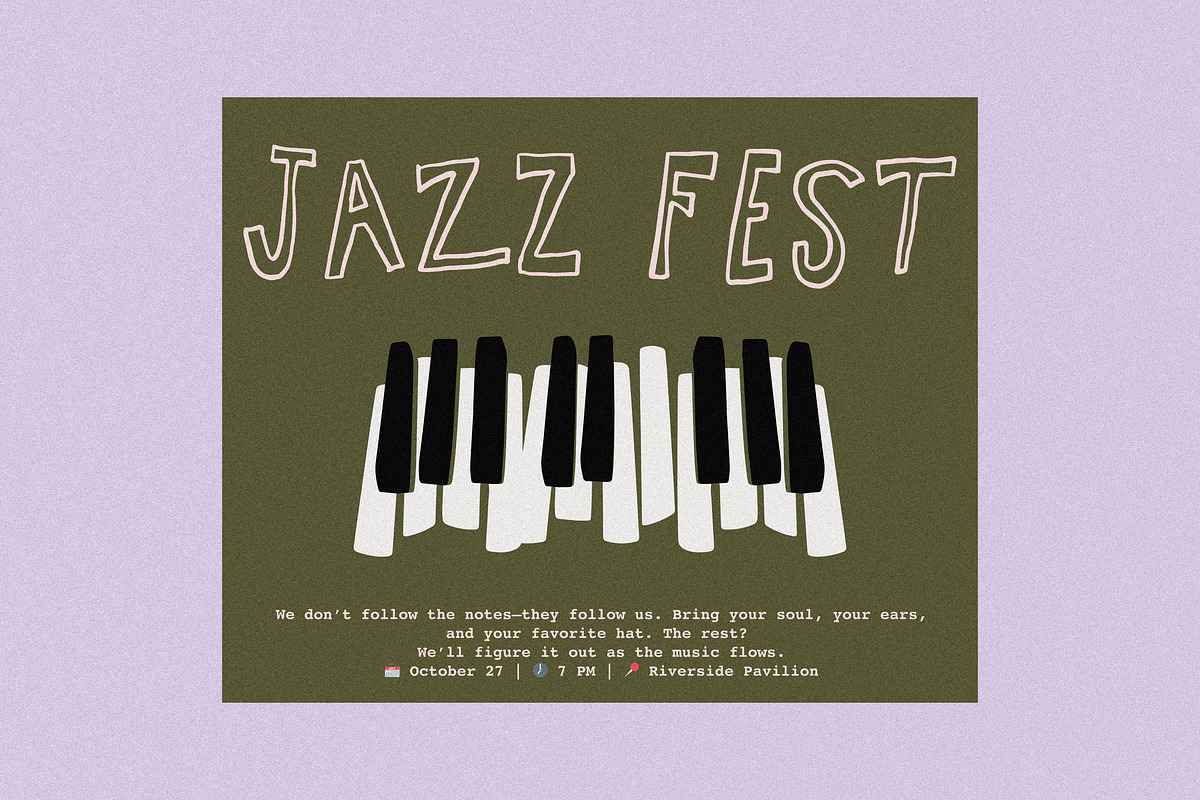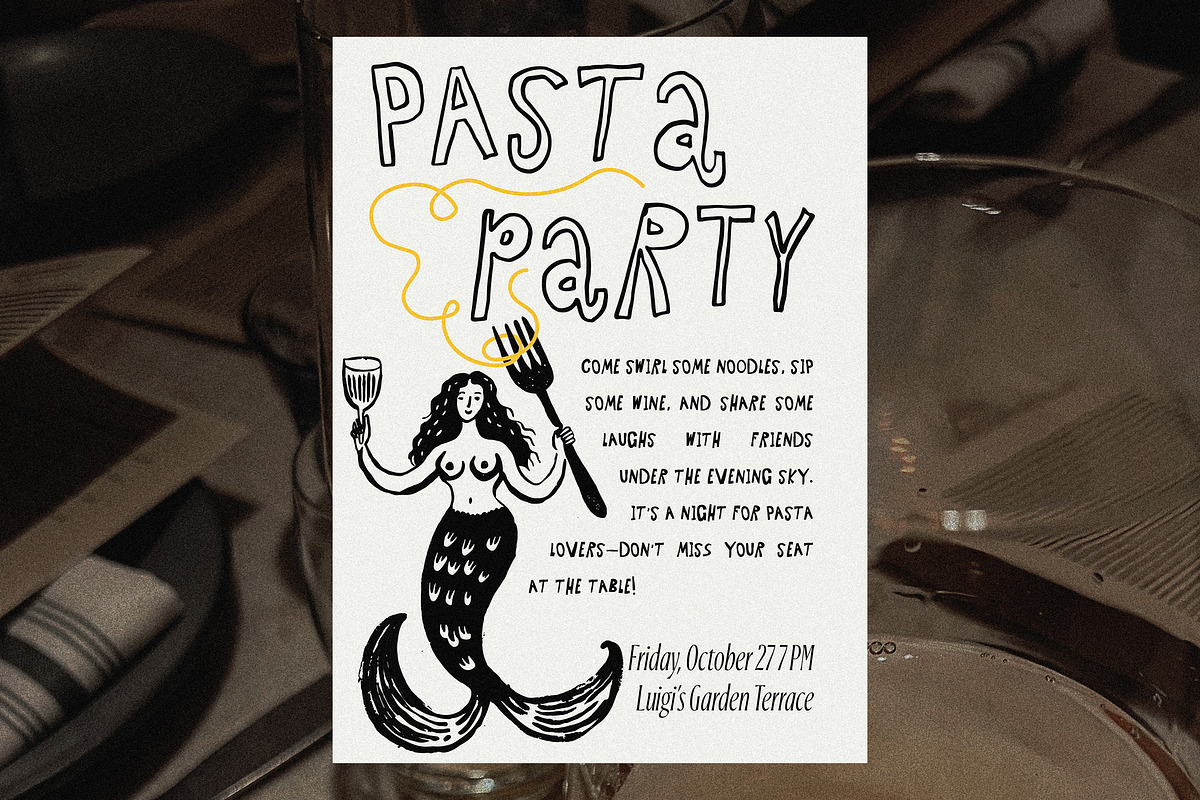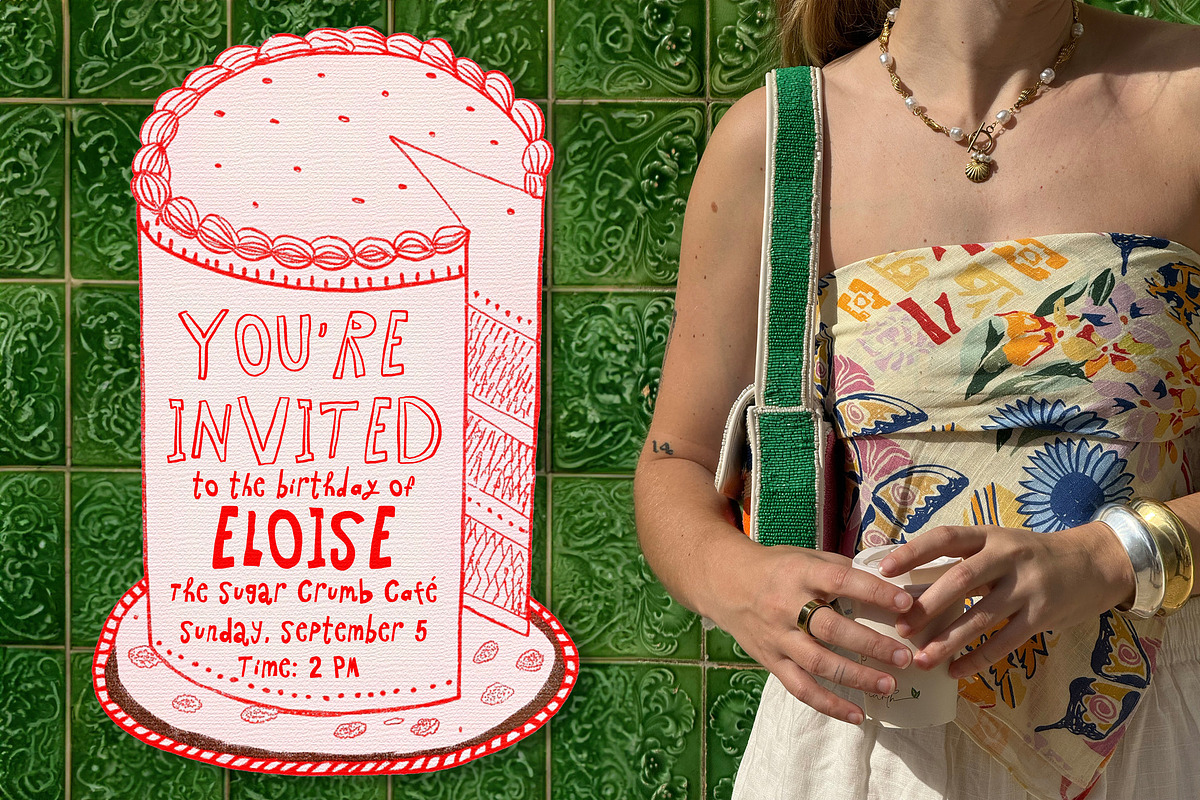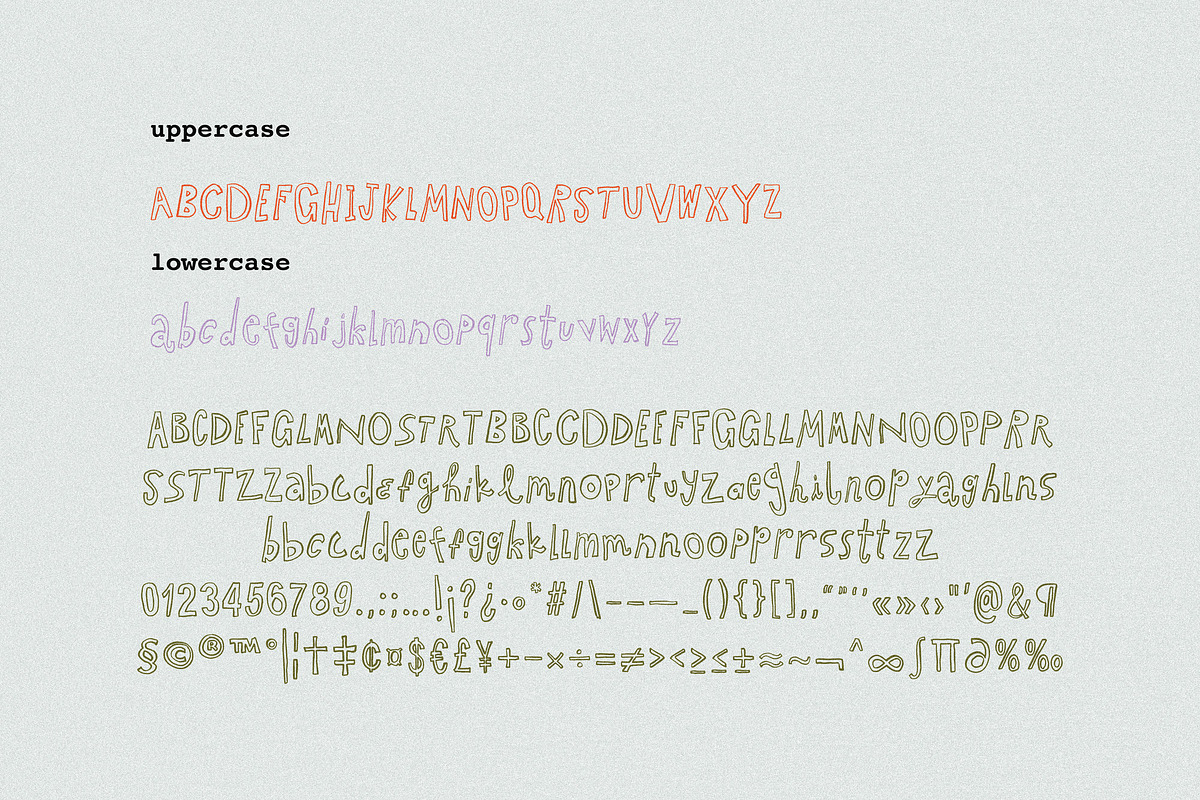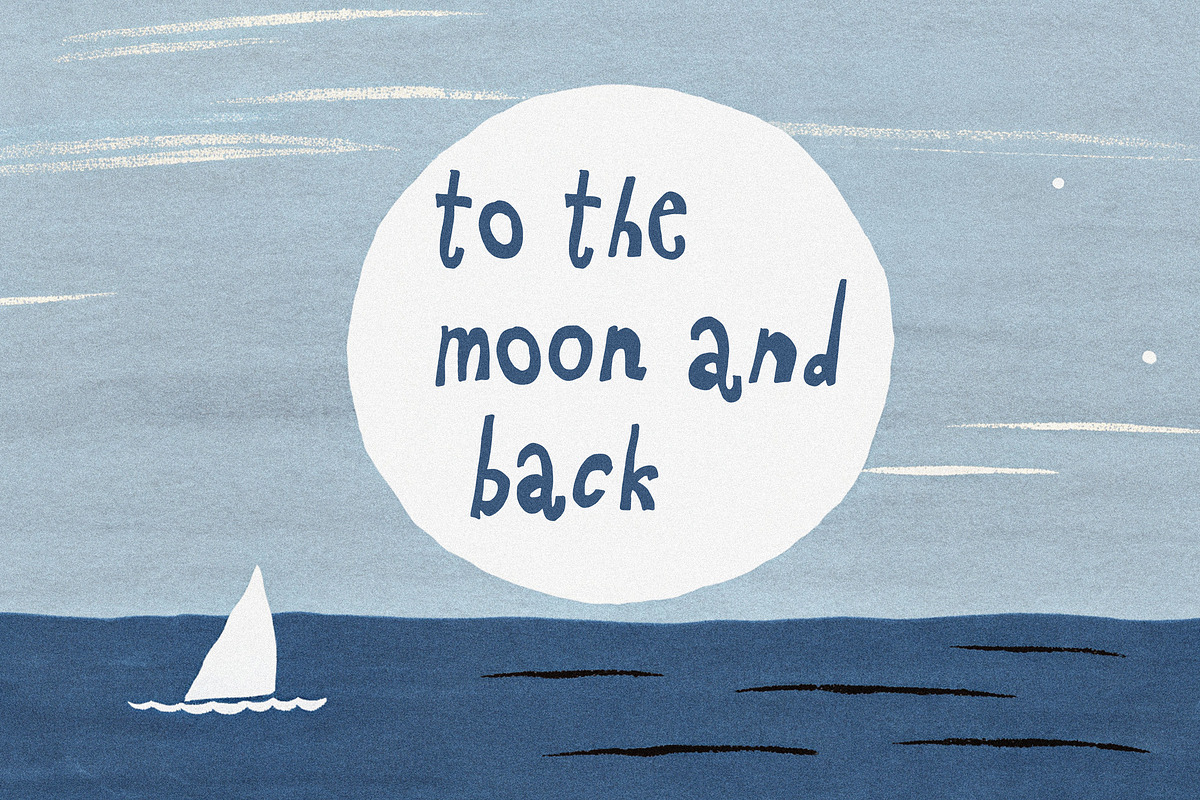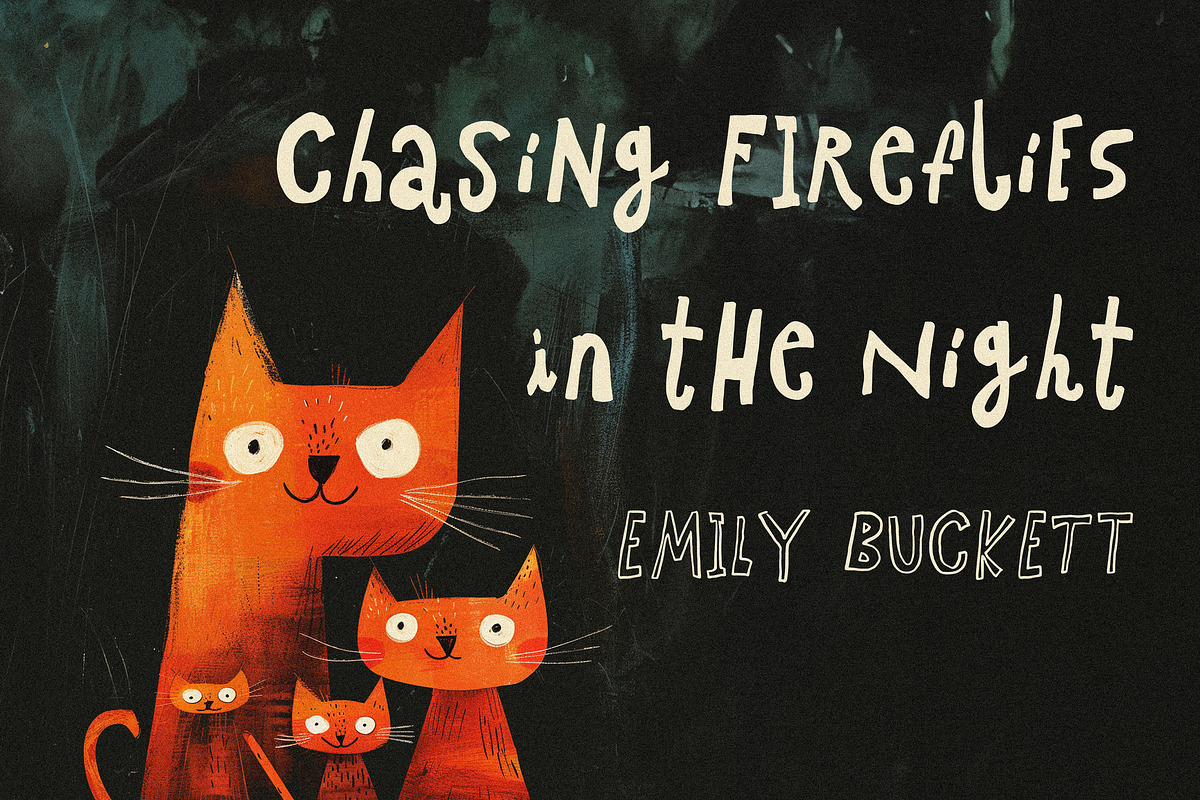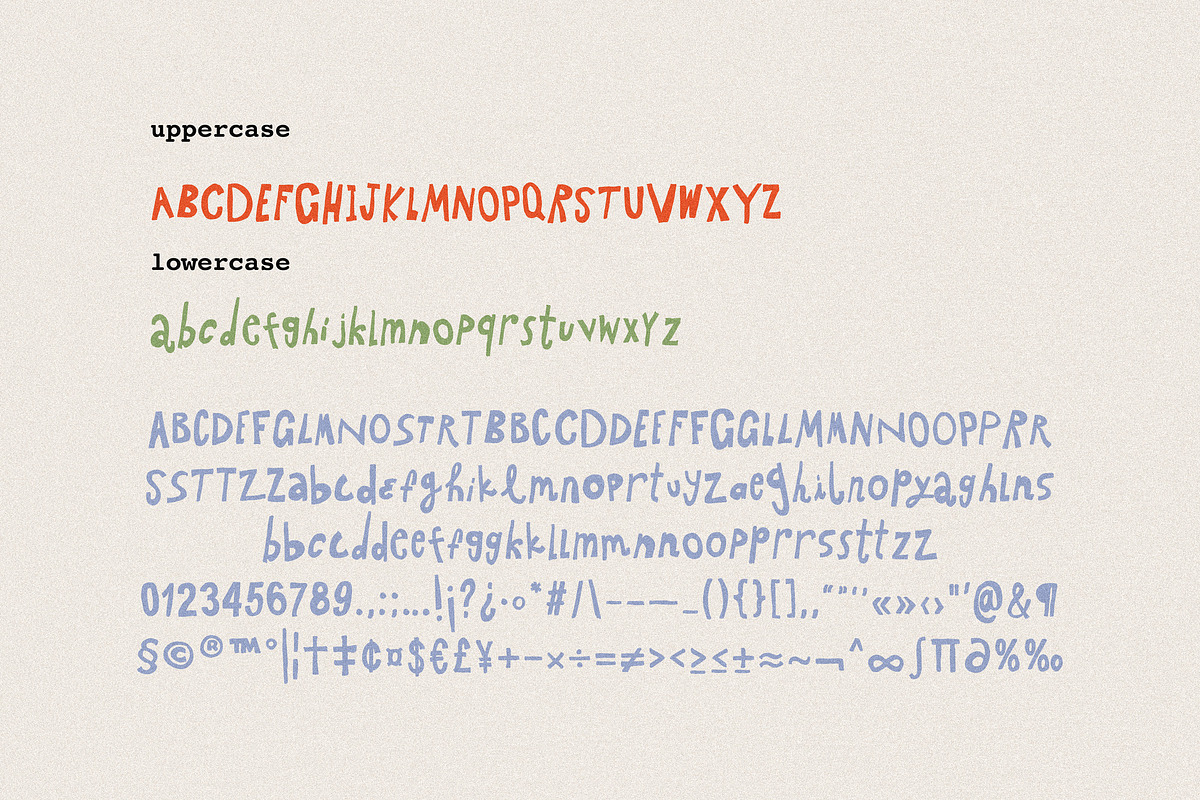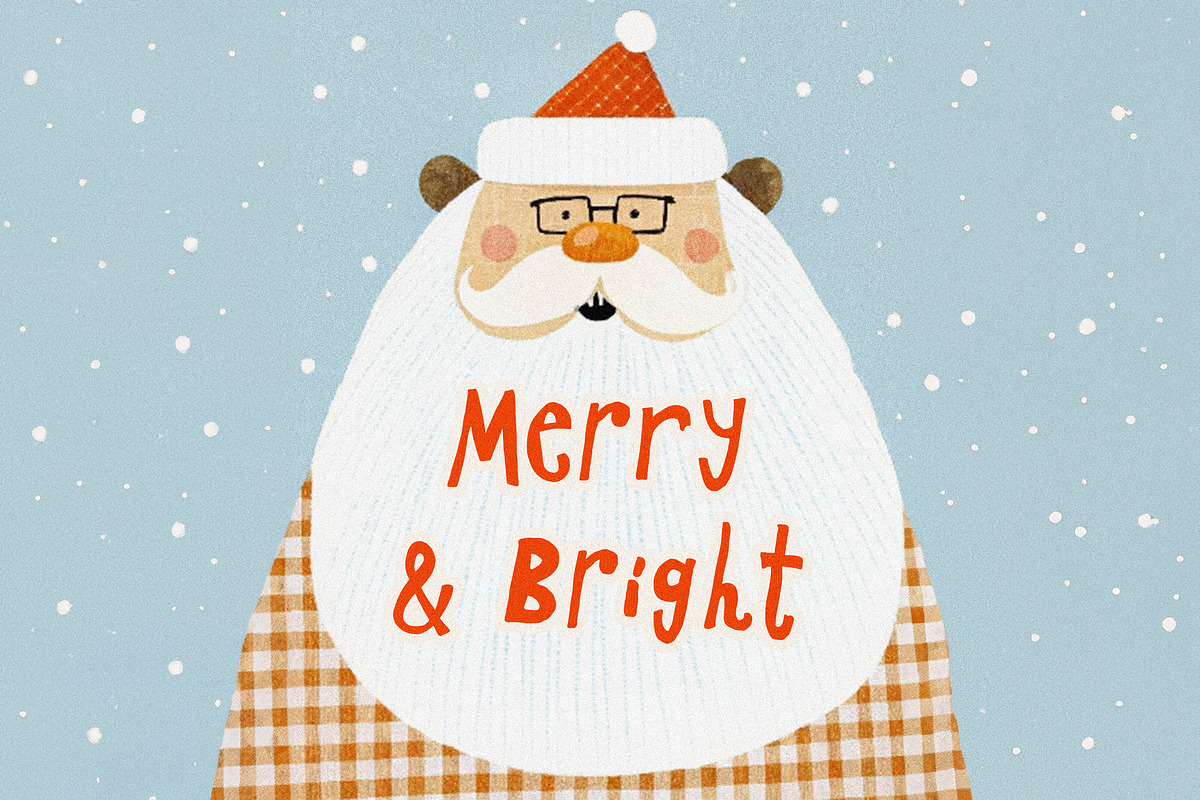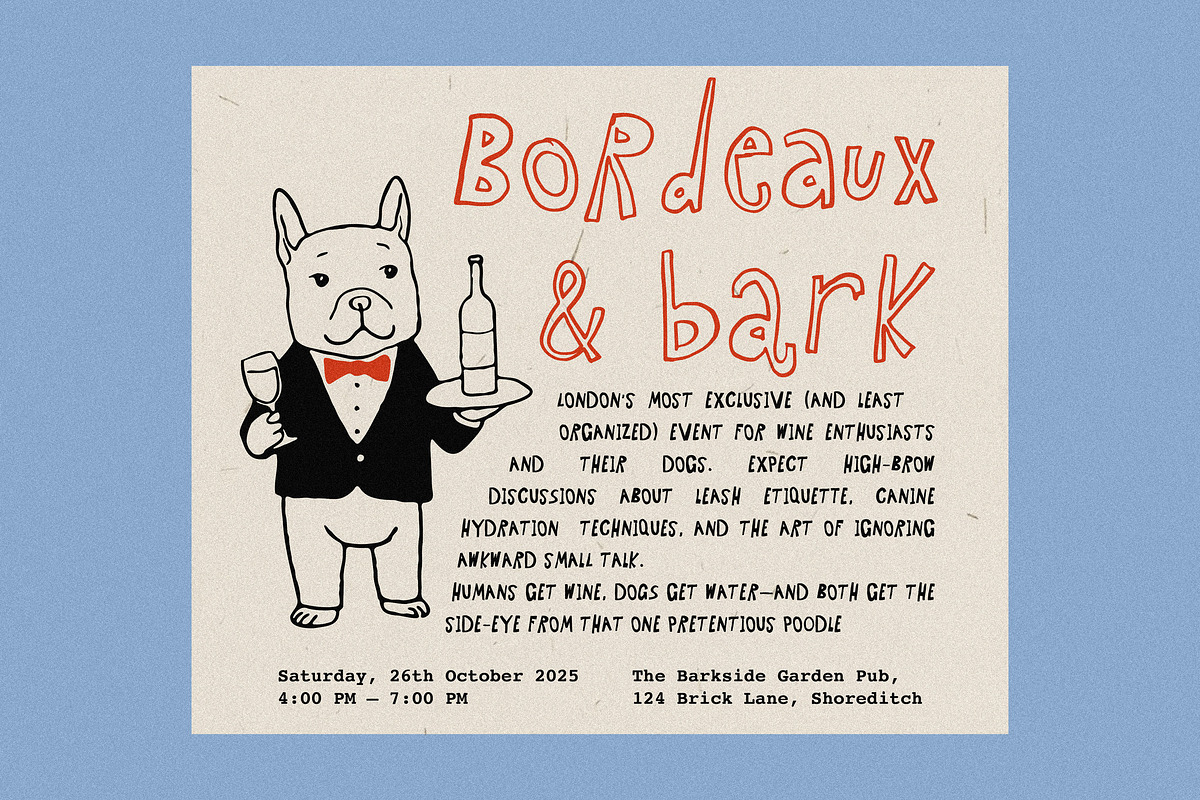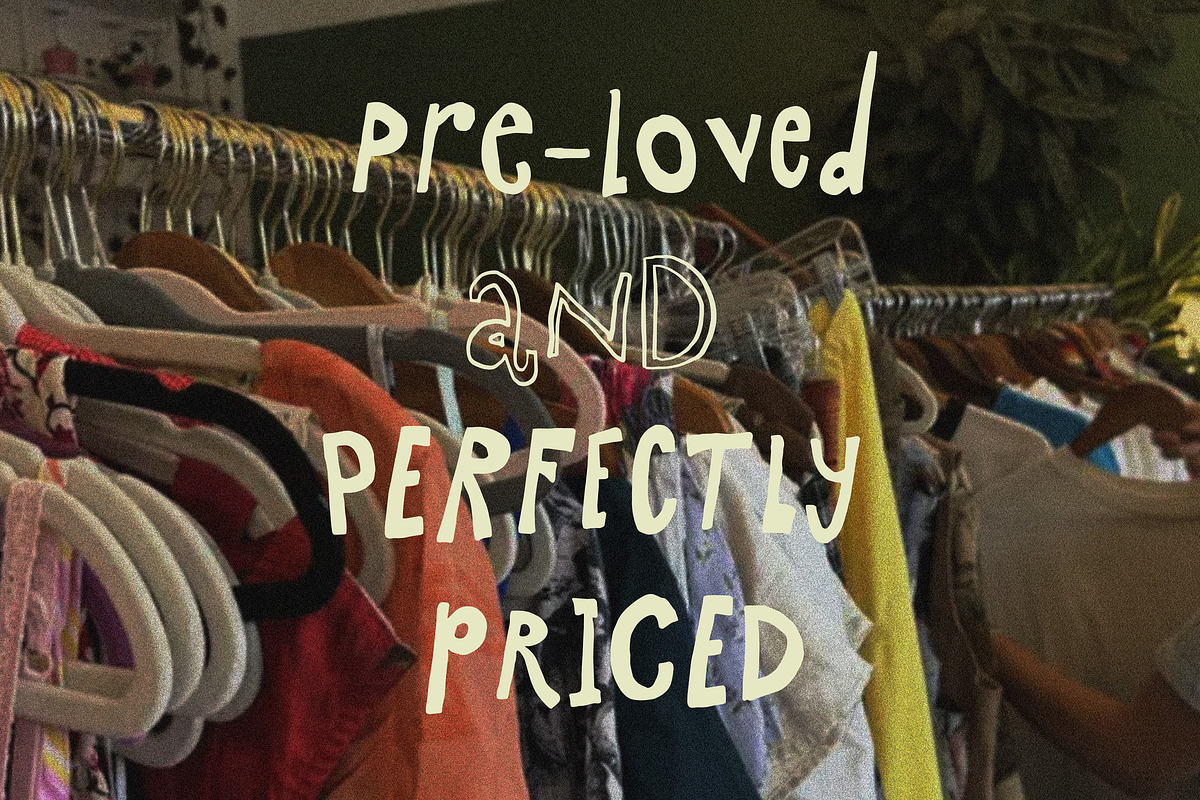
Farmers' Market // Font Duo
Farmers' Market is a hand-drawn font duo, created without automation or strict rules. It offers two styles—one filled and one outlined—that can be combined in any way you like. Each character was drawn as if it were part of something bigger: from posters to illustrations for children's books.
There is no perfect geometry here. The letters are slightly uneven, gently wavering, like an artist's hand in motion. This is what makes the font feel alive. These imperfections bring personality and warmth to projects, as if each word were crafted to tell its own story.
Where to Use Posters that aim to attract attention with spontaneity. Children’s books or projects that need a touch of lightness and playfulness. Signage where an informal, friendly aesthetic fits the mood. Cafe menus or any project that values individuality and charm.
This font is not a groundbreaking concept but rather a return to simplicity and the warmth of handwritten text. It serves its purpose: conveying emotion through writing, without striving for perfection.